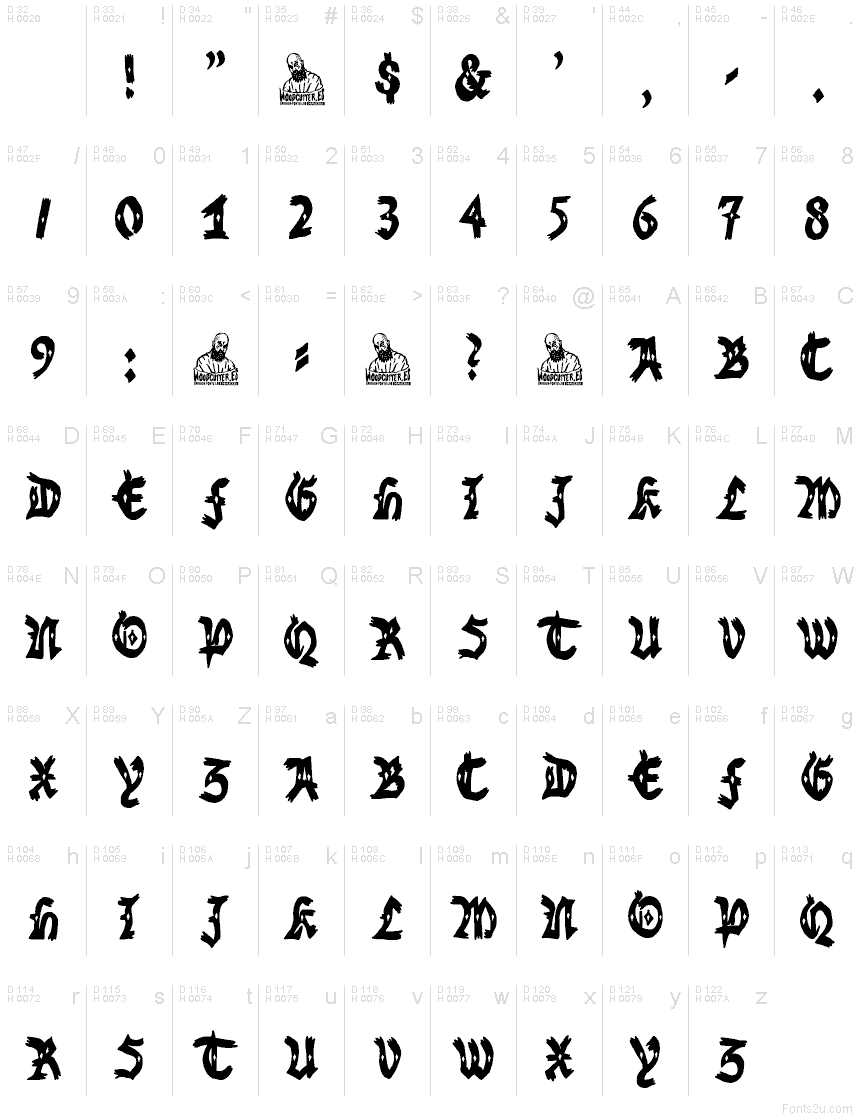
Nottingham Gang
Nottingham Gang font is a complex decorative typeface that combines gothic influences with intense character and visually complex ornamentation. Each character mixes bone-like shapes with reversed serrated barbed-wire head, all in a fibrous manner. Short diagonal strokes decorate each element creating a letter that is illegible, even incomprehensible. This results in an overall grotesque and dramatic font available as free display gothic font.
Use Nottingham Gang for book covers, posters, packaging design (especially for board games), digital art pieces, gaming applications/virtual environments design, display/editorial titlesand headlines or branding projects especially those related to horror shows and Halloween events. Gothic novels and fictional works inspired by medieval times lone themselves well to this heavy text writing style.